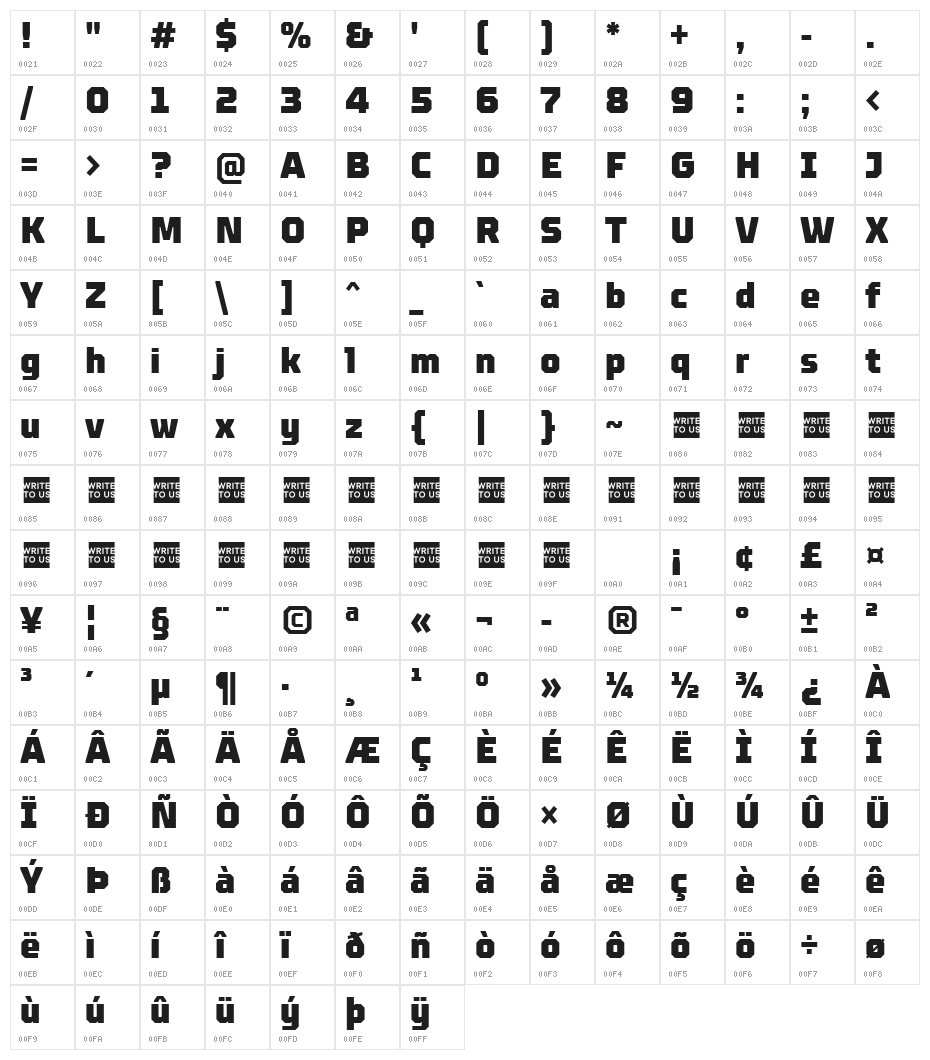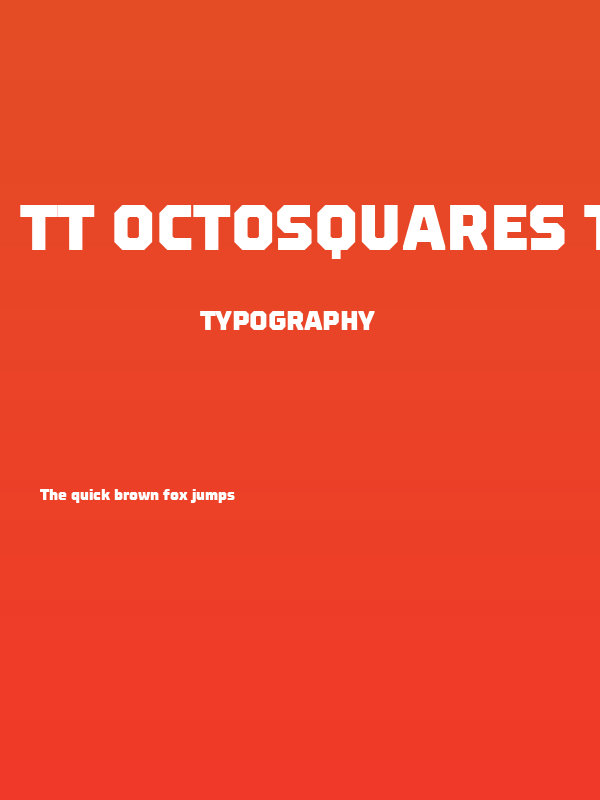
TT Octosquares Trl Cnd Blc Font
TT Octosquares Trl Cnd Blc Description
This font features a bold and geometric design with a strong, impactful presence. The characters are constructed with sharp, angular edges and a consistent thickness throughout, giving it a modern and industrial feel. The uppercase and lowercase letters maintain a uniform width, contributing to a cohesive and structured appearance. The numerals and special characters follow the same design principles, ensuring visual harmony across all elements. Its condensed form allows for efficient use of space, making it suitable for headlines and display purposes where a commanding visual is desired.
| Proposed Projects | Ideal for branding, posters, headlines, and any project requiring a strong visual impact. |